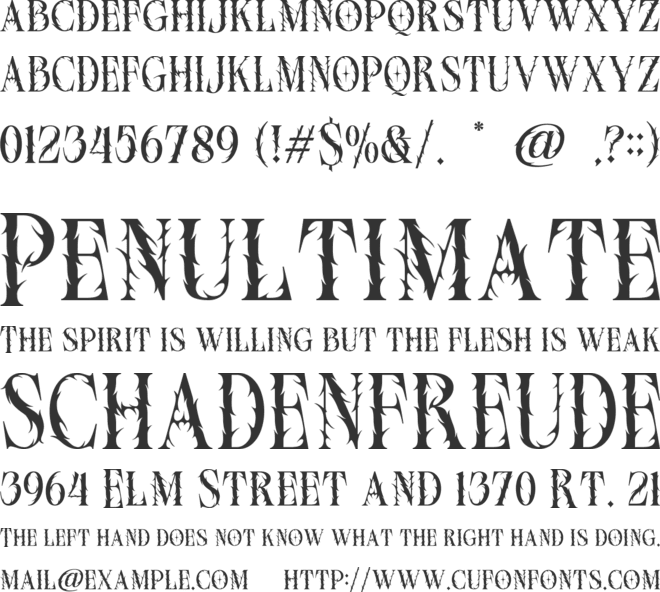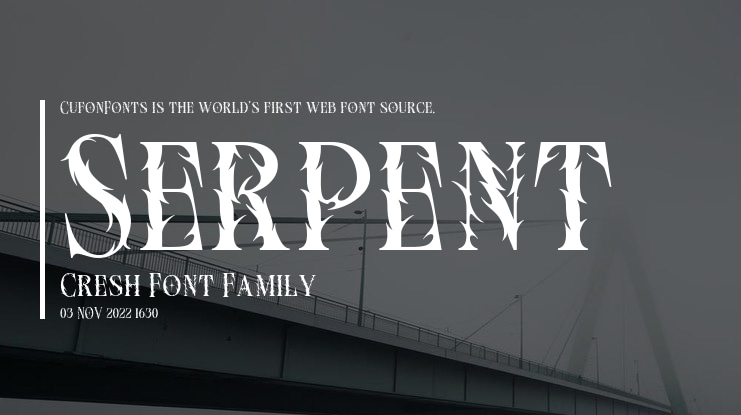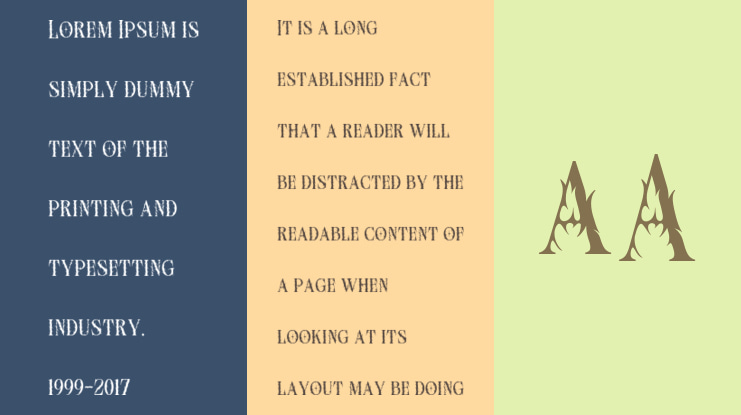
Serpent Cresh Font
Serpent Cresh: A Dark Fantasy & Metal Typeface
Unleash the darkness and majesty of ancient myths with Serpent Cresh, the new dark fantasy typeface from Alit Design Studio. This font is not just a set of letters; it's a descent into a world of epic chaos, gothic flames, and legendary power.
Inspired by the serpentine forms of mythical dragons and the raw, untamed energy of heavy metal, Serpent Cresh is a display serif that has been forged in shadow. Its sharp, thorny edges and powerful letterforms provide a strong foundation, while its extensive collection of alternates transforms your text into an intricate work of dark art.
This typeface is a must-have for any project that demands a powerful, majestic, and foreboding aesthetic.